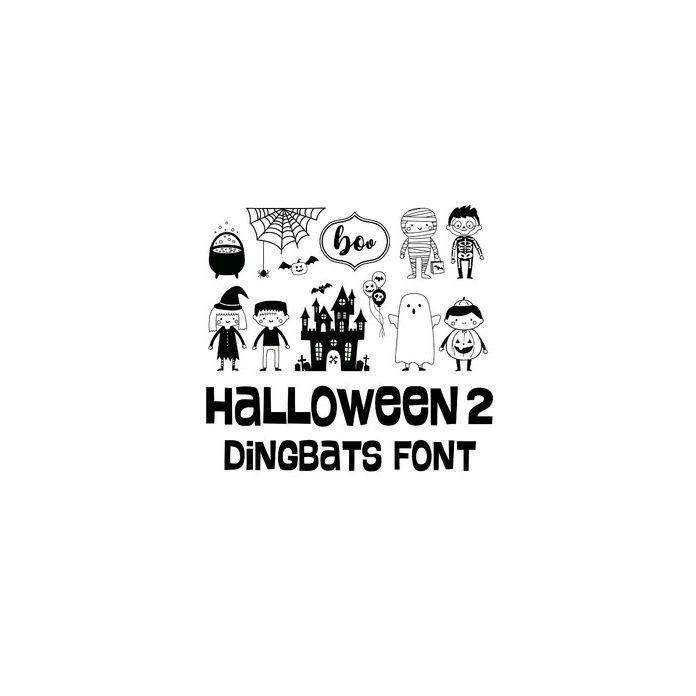
Halloween 2 Dingbats Font
These 26 adorable Halloween icons are fun to work with and make perfect embellishments for Halloween projects. Visit Lori Whitlock on YouTube, Instagram, Facebook, or her blog for tutorials, inspiration, and freebies. Be sure to watch Lori's Dingbats tutorial video.